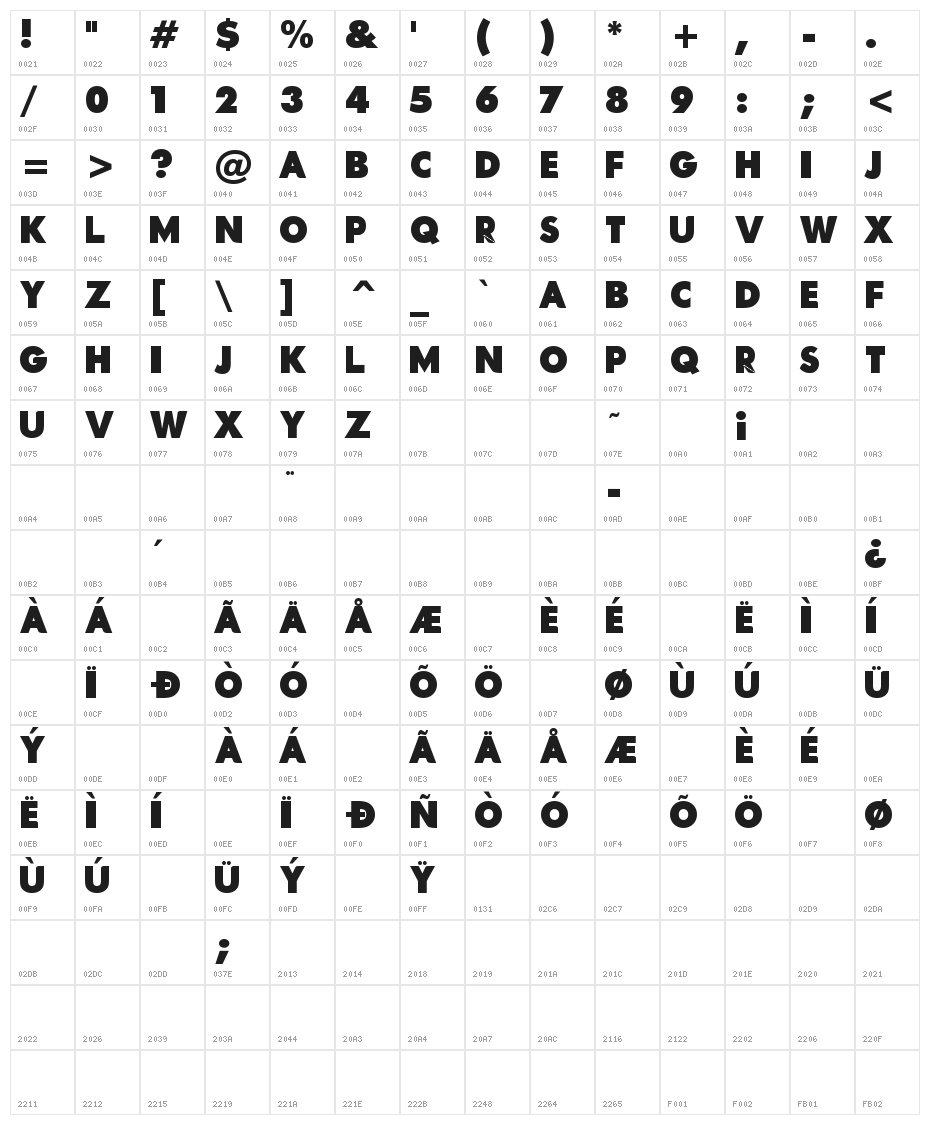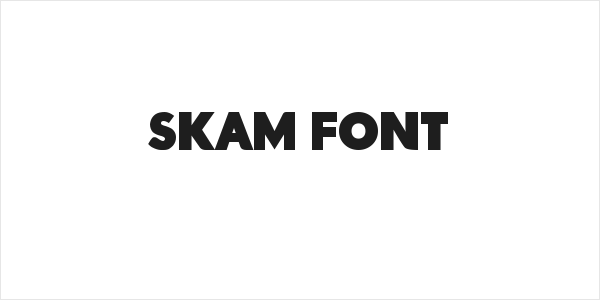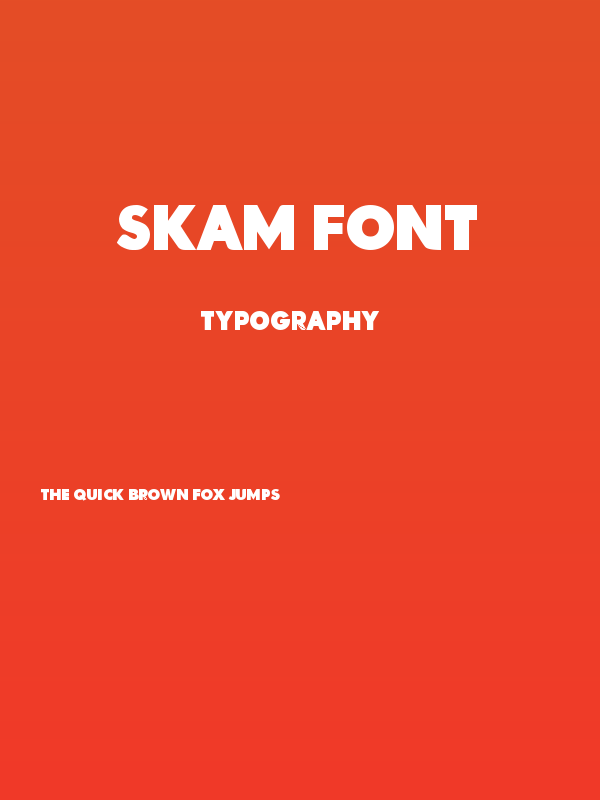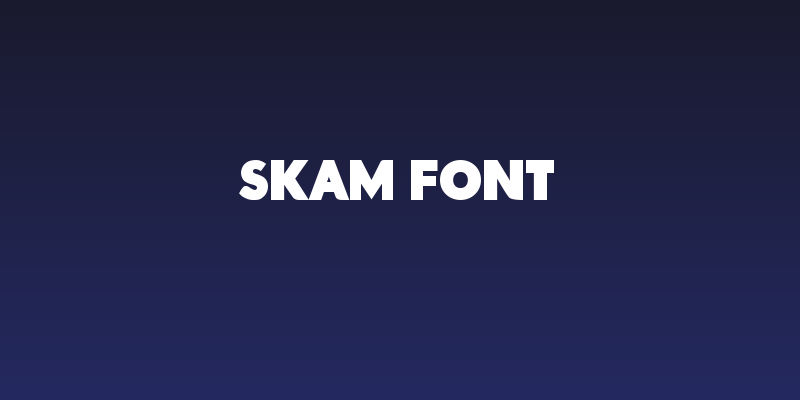
Skam Font Description
This bold and impactful font features strong, thick strokes that convey a sense of power and confidence. The characters are uniformly wide, with a consistent weight throughout, making it ideal for attention-grabbing headlines and titles. The uppercase letters are particularly striking, with a geometric precision that adds a modern touch. The numbers and special characters maintain the same boldness, ensuring a cohesive look across all text elements. This font's design is straightforward yet assertive, making it suitable for projects that require a strong visual presence.